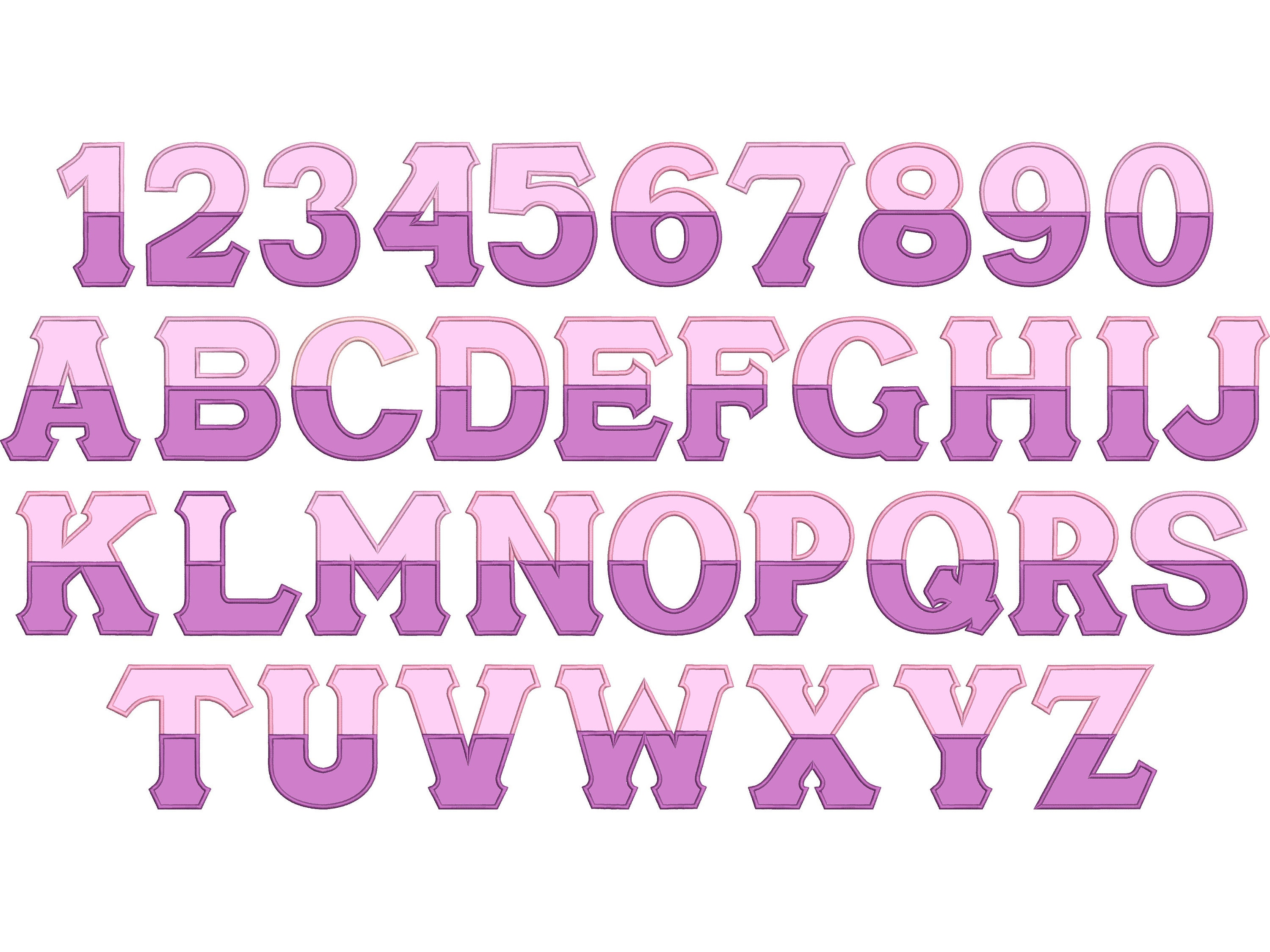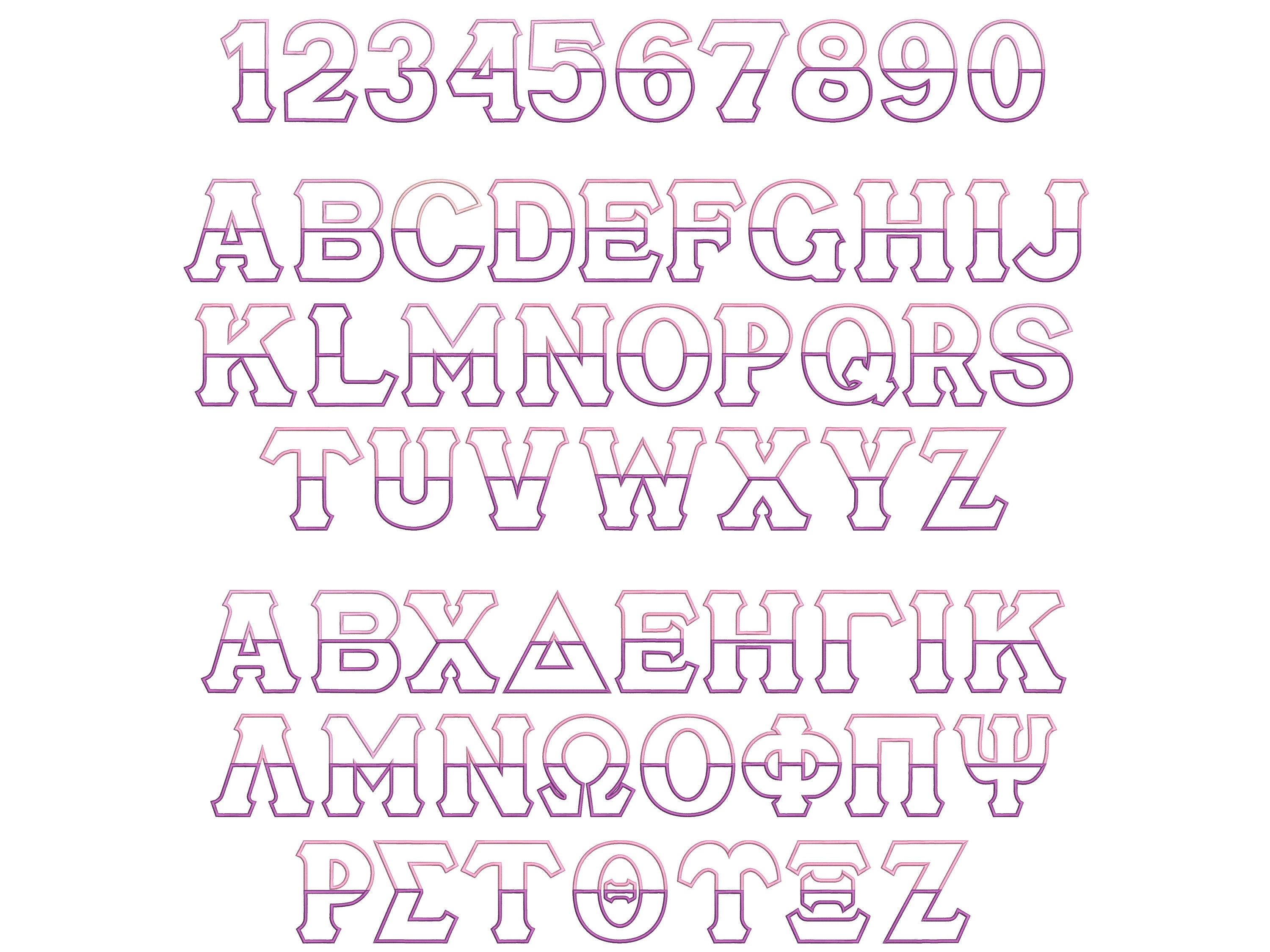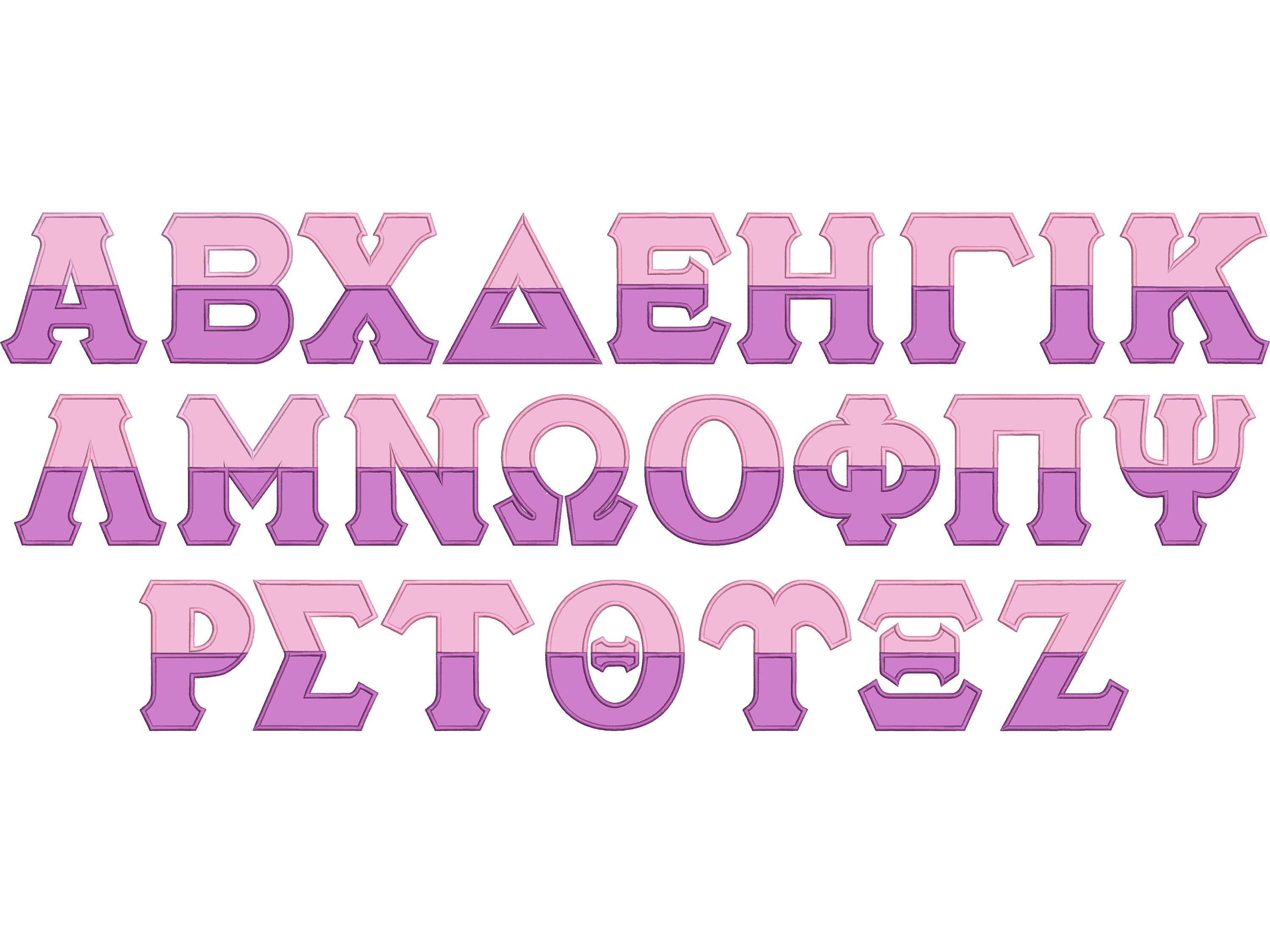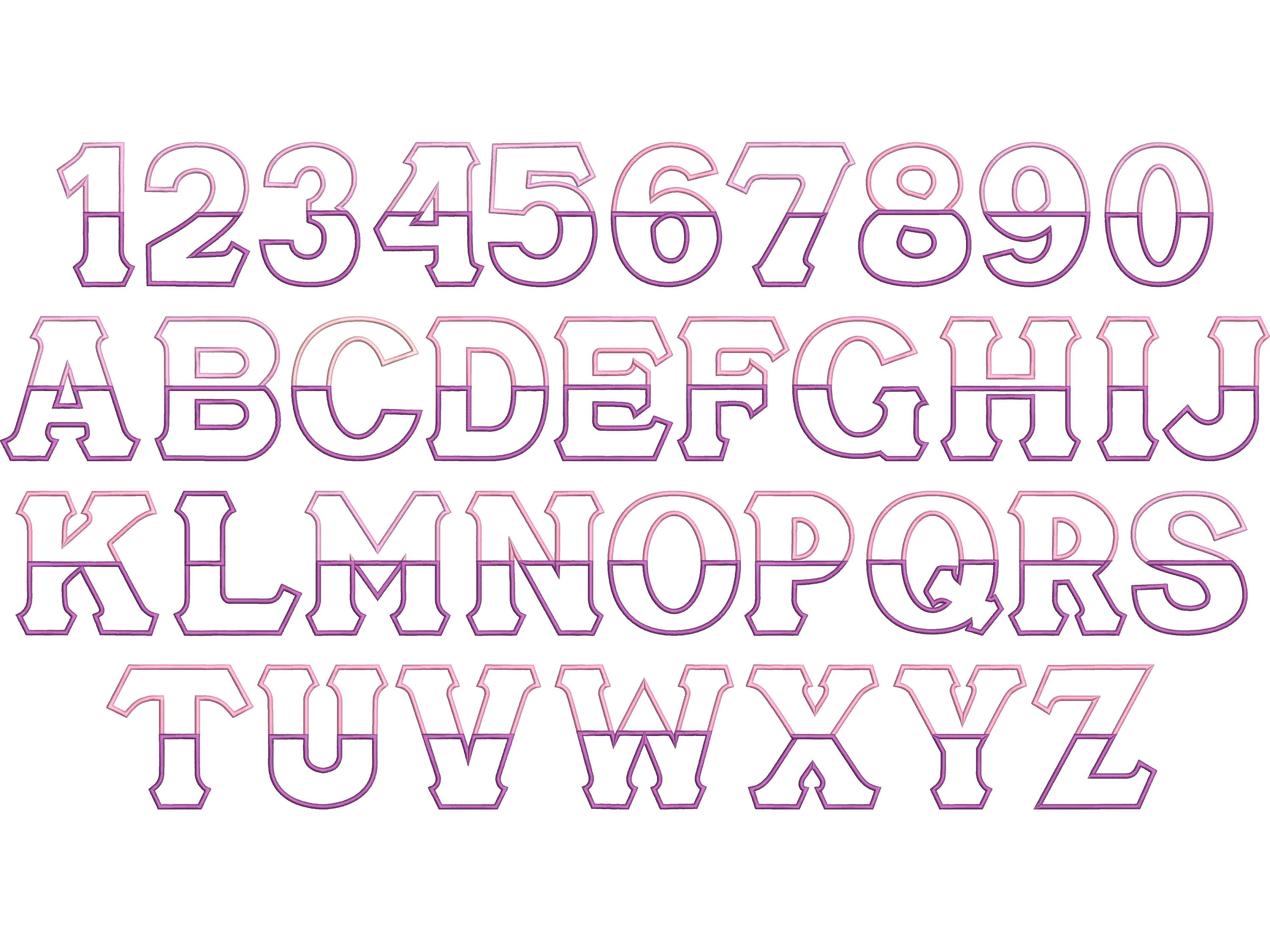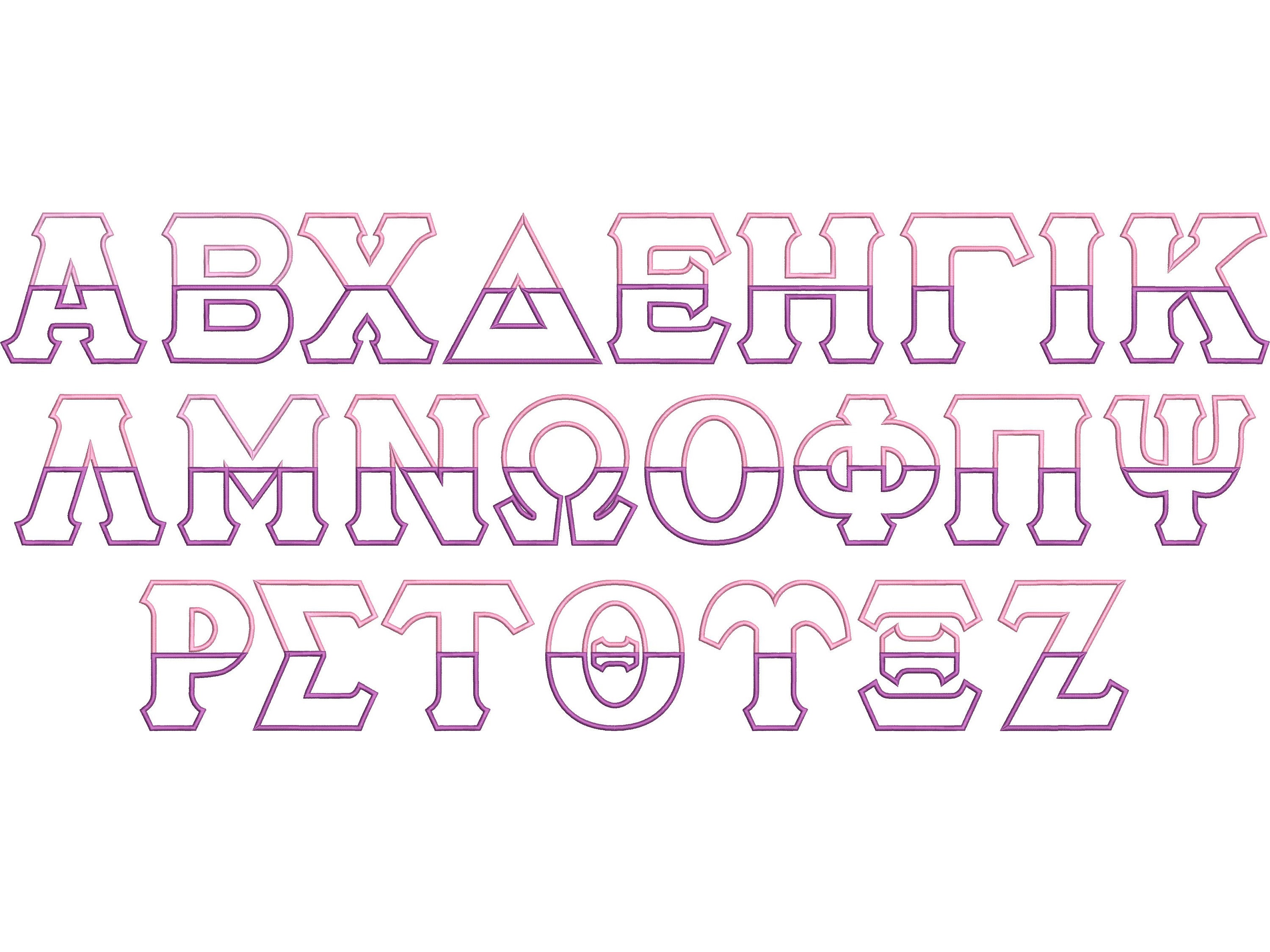
Split font English alphabet and numbers with Greek sororities whole alphabet classic satin applique BIG SET machine embroidery designs, BX!
Applique with classic satin stitch outline.
English Letters
Numbers
Greek letters